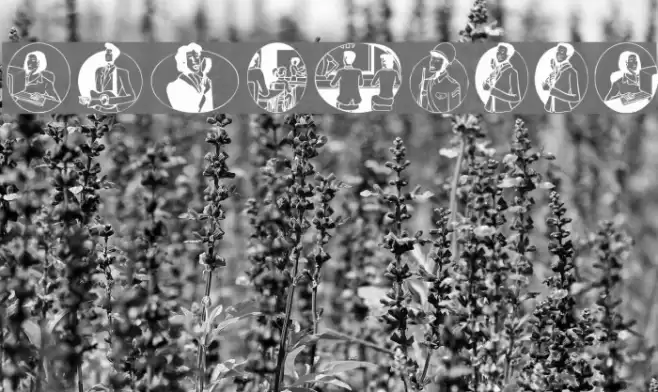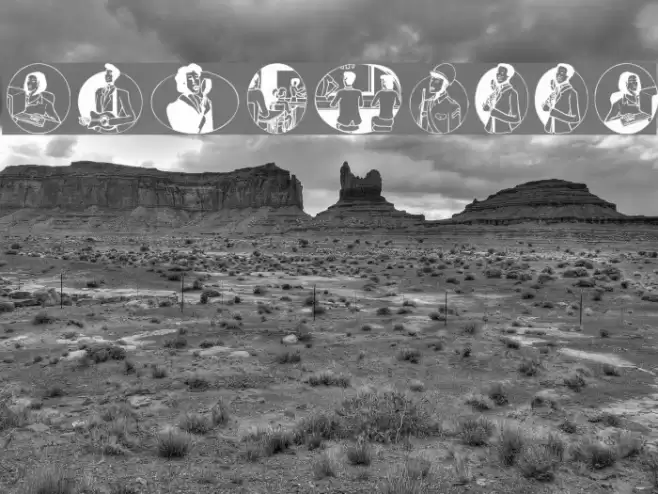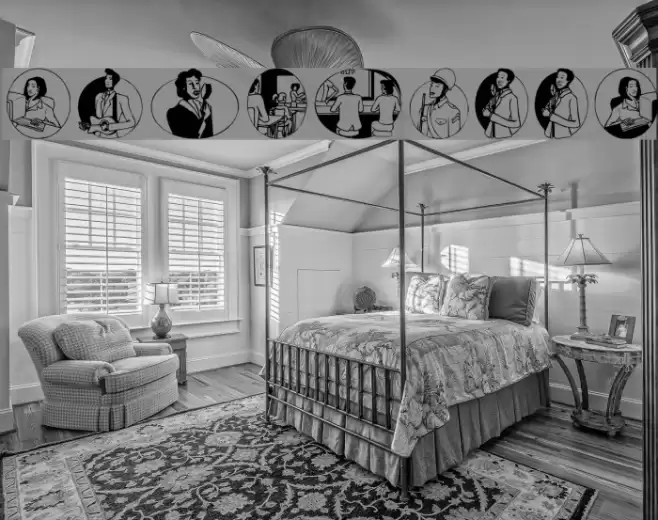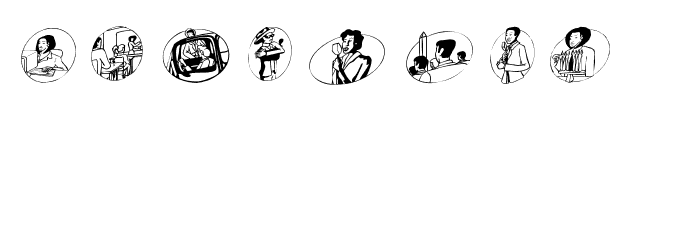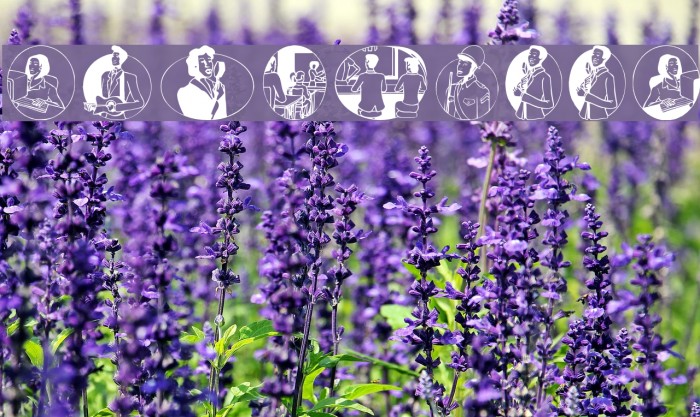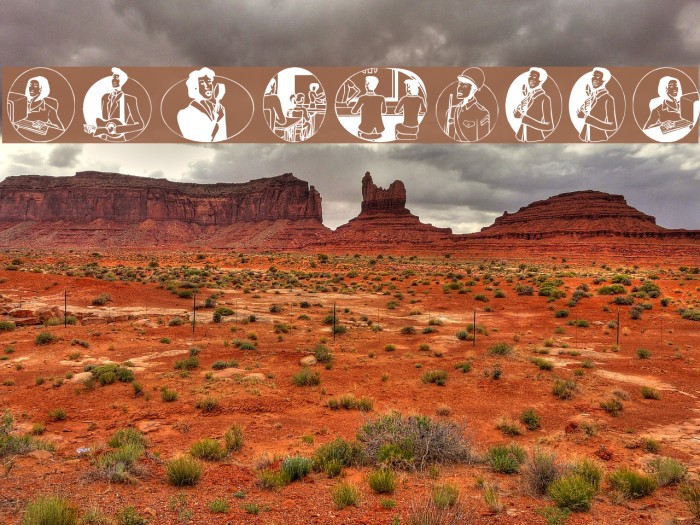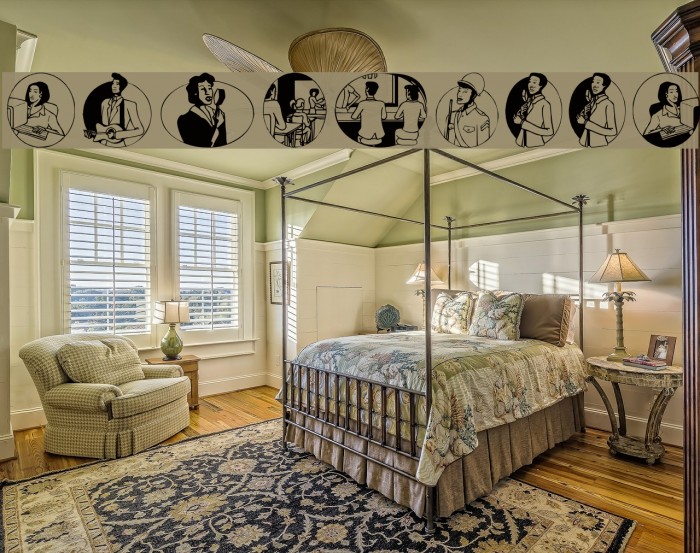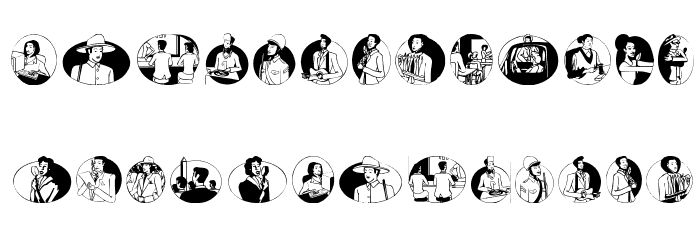
AfricEggs Font
AfricEggs Description
A decorative set of illustrated glyphs, each character represented by a unique hand-drawn portrait or scene within a circular frame, using bold black and white contrast. The style is sketch-like, with expressive line work and varying fill patterns, giving each letter and symbol a distinct personality.
Hand-drawn, illustrated font with unique portraits for each character from Uncategorized fonts.
- Proposed Projects: Children’s books, educational materials, creative branding, posters, art projects, editorial illustrations.
- Overall Style: Decorative, Artistic, Playful
- Use Case: Display, Posters, Branding, Editorial, Art Projects